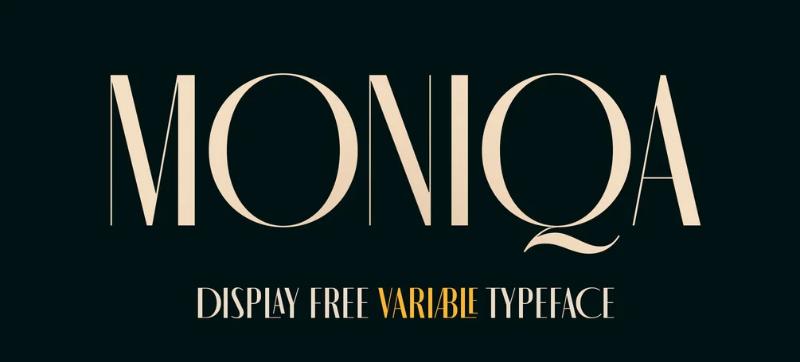
MONIQA is a versatile sans-serif typeface designed by Indian designer Rajesh Rajput, offering 162 styles with various weights, widths, and italics for customization.
The font supports both Latin and Cyrillic scripts, accommodating over 68 languages, making it suitable for international projects.
MONIQA is a modern and flexible typeface suitable for a wide range of design applications, including branding, editorial content, and digital interfaces.
Released in 2021, MONIQA is a valuable addition for designers looking to create compelling and effective designs with a comprehensive suite of styles and features.